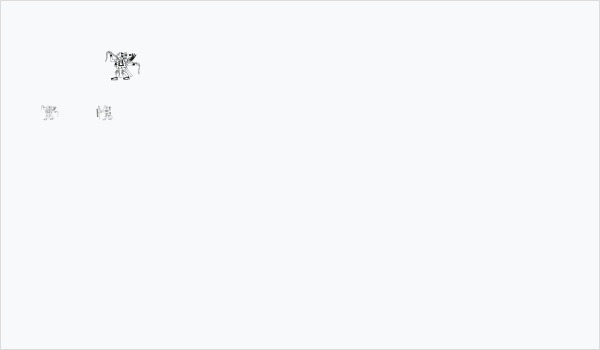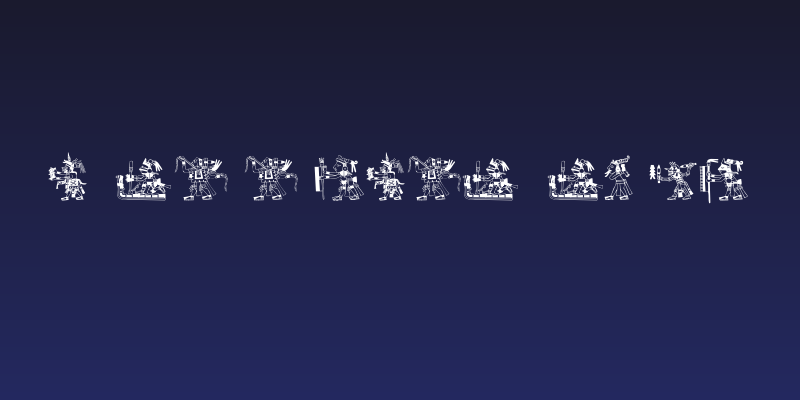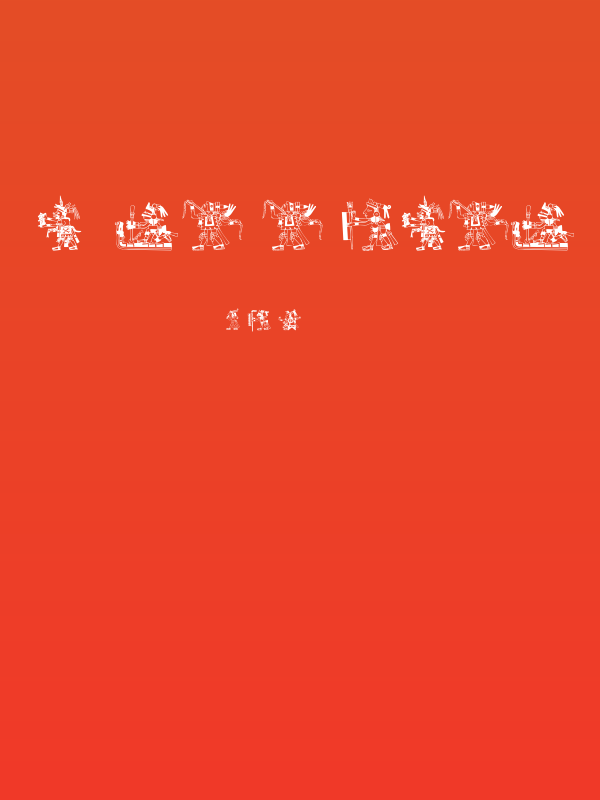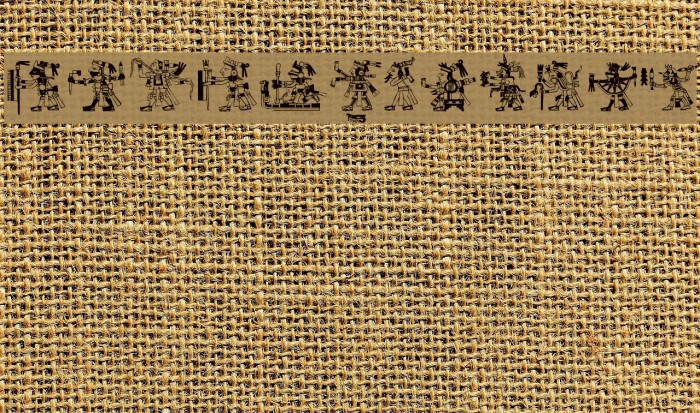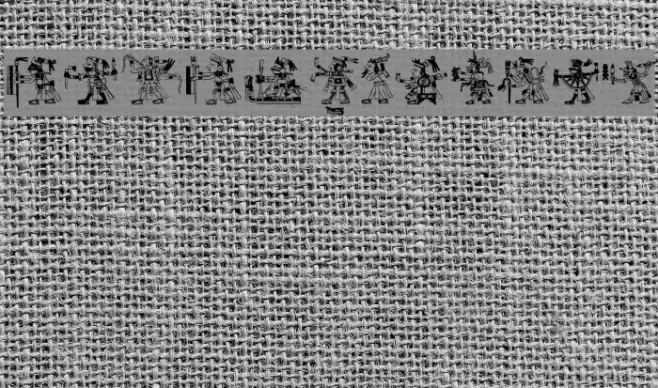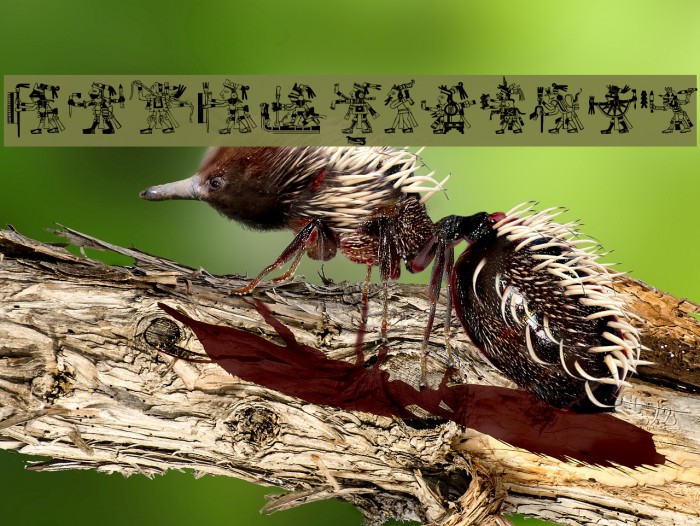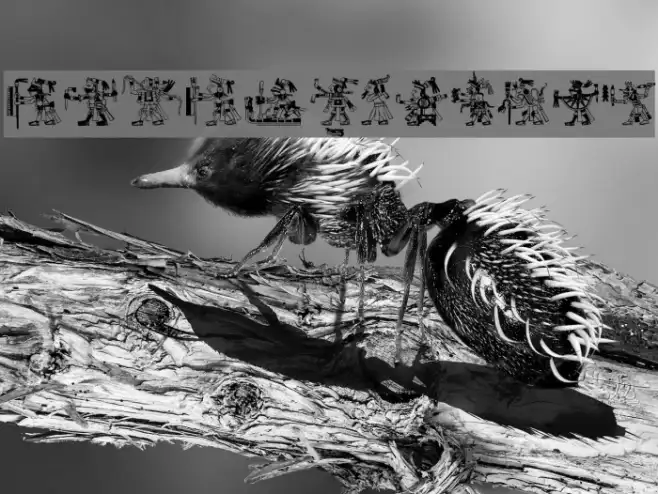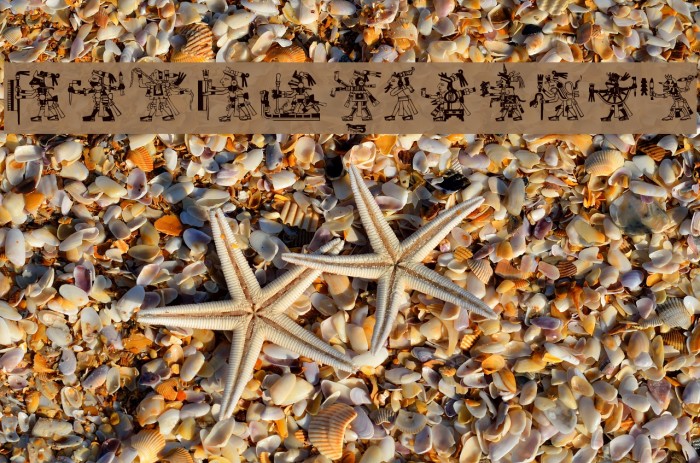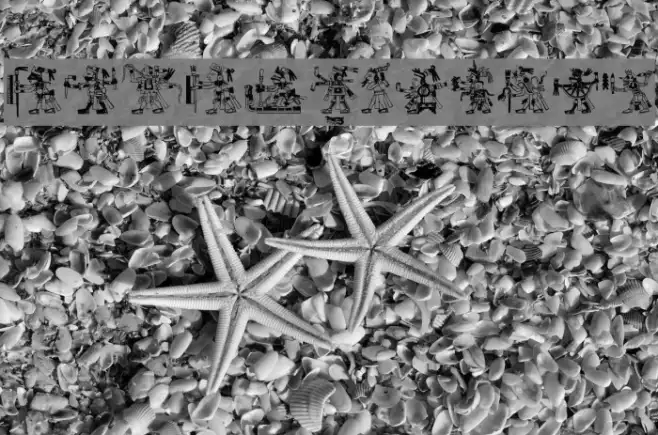
Mixtec Codice Regular Font
Mixtec Codice Regular Description
This font is a unique and artistic representation of ancient Mixtec codices, featuring intricate and detailed glyphs that resemble historical illustrations. Each character is designed with elaborate patterns and figures, capturing the essence of ancient Mesoamerican art. The font is highly decorative, with each letter resembling a small piece of art, making it more suitable for thematic or cultural projects rather than standard text. The characters are complex and visually engaging, offering a glimpse into the rich cultural heritage of the Mixtec civilization.
| Use Case | Logos, Posters, Themed Events |
| Proposed Projects | Ideal for cultural exhibitions, historical documentaries, themed posters, or educational materials about Mesoamerican history. |